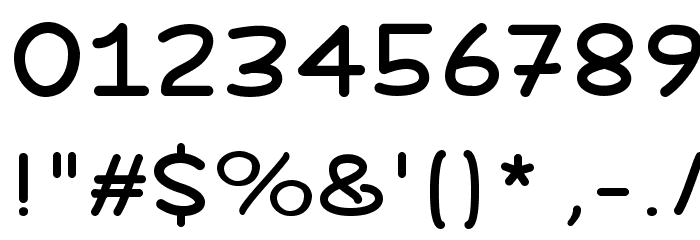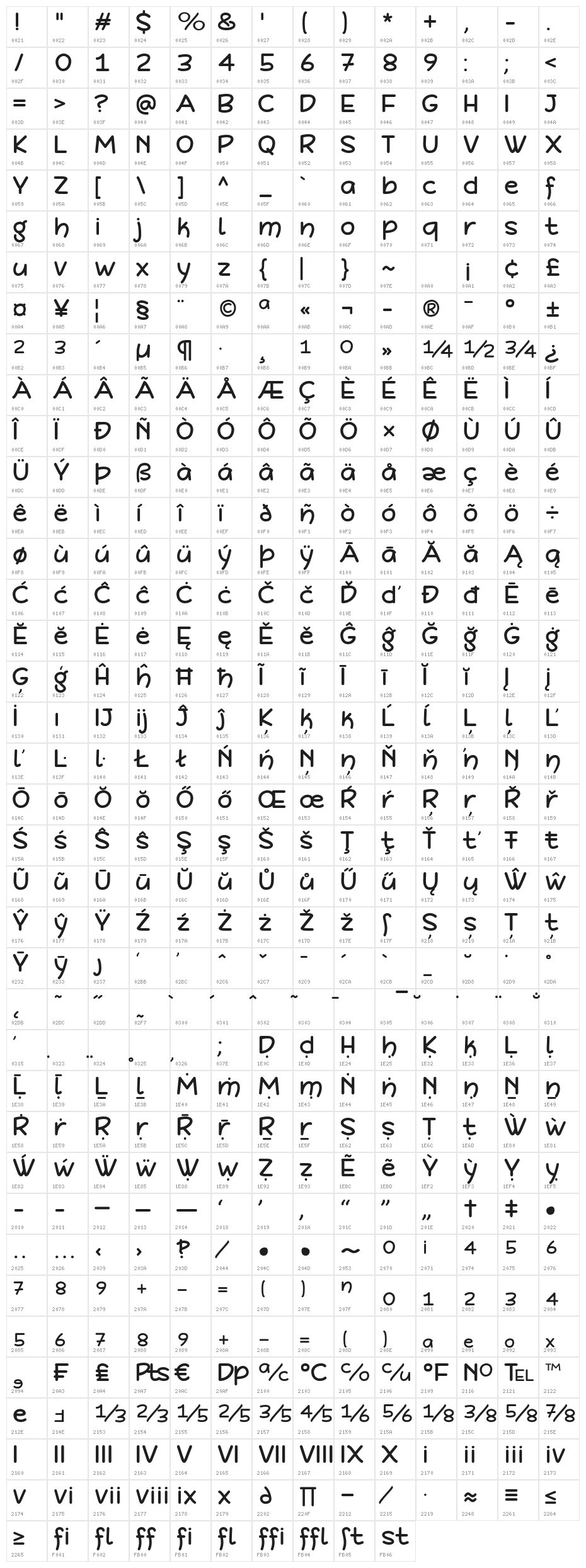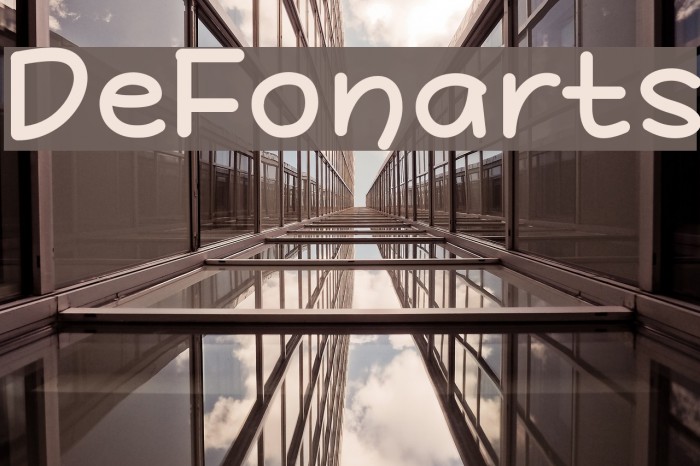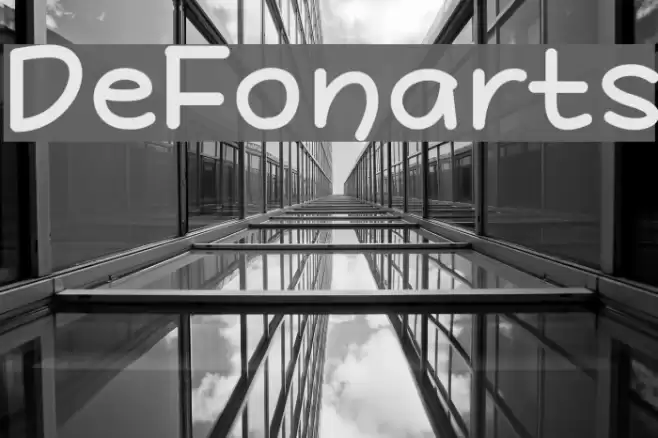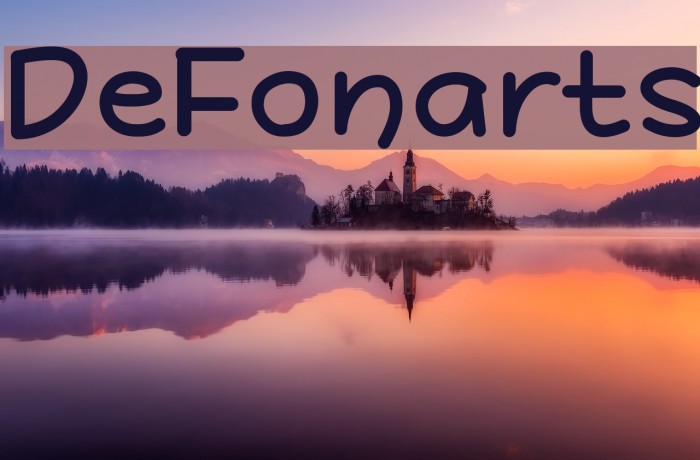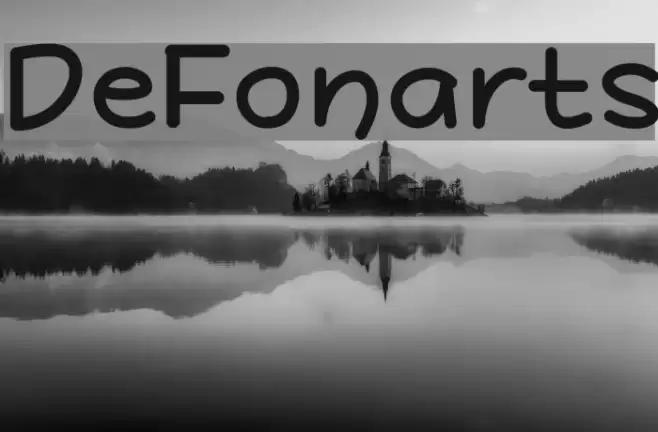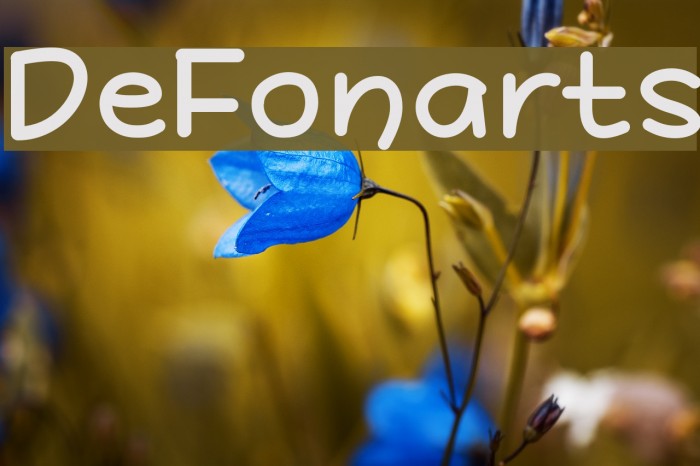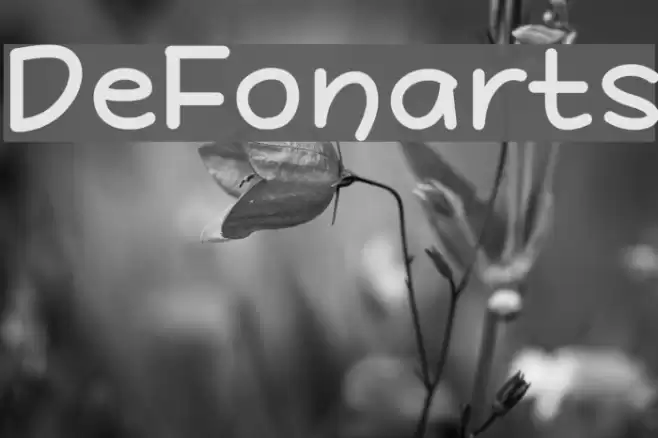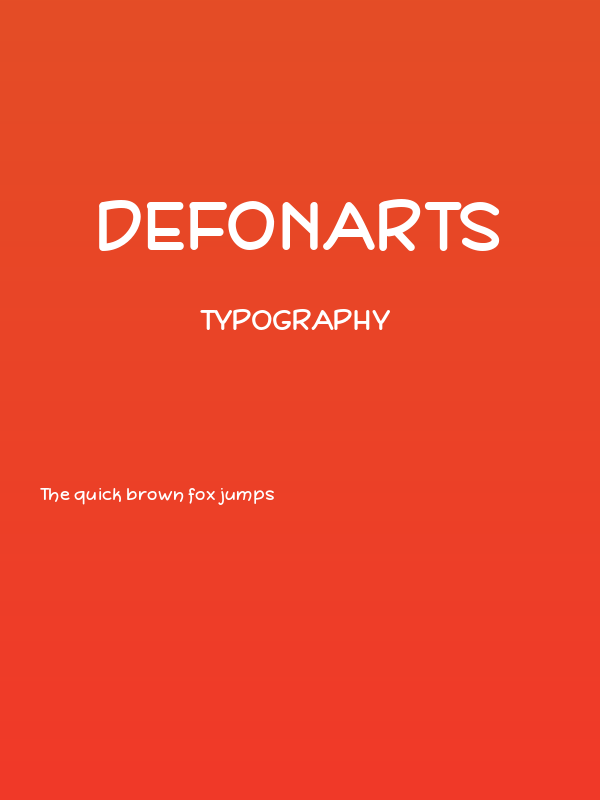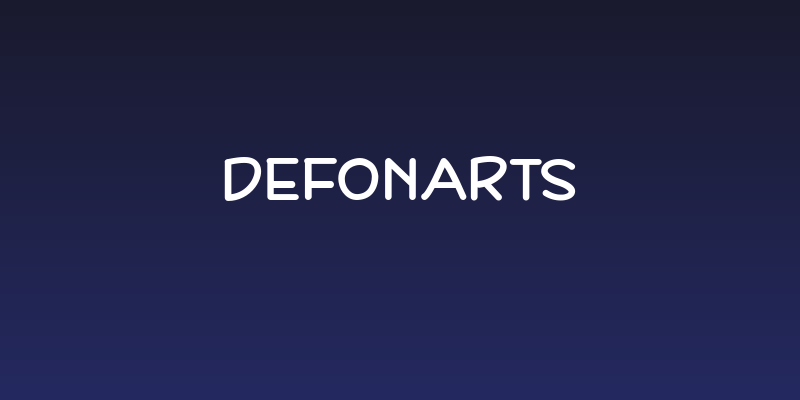
DeFonarts Font
DeFonarts Description
This playful and rounded font features a casual and friendly appearance, characterized by its smooth curves and uniform stroke width. The letters have a slightly informal feel, making them approachable and easy to read. The uppercase and lowercase letters maintain a consistent style, with rounded edges and a slight tilt that adds to the font's charm. The numerals and special characters follow the same design principles, ensuring a cohesive look across all elements. This font's simplicity and warmth make it suitable for a variety of creative projects.
| Proposed Projects | Ideal for children's books, playful branding, casual invitations, and social media graphics. |